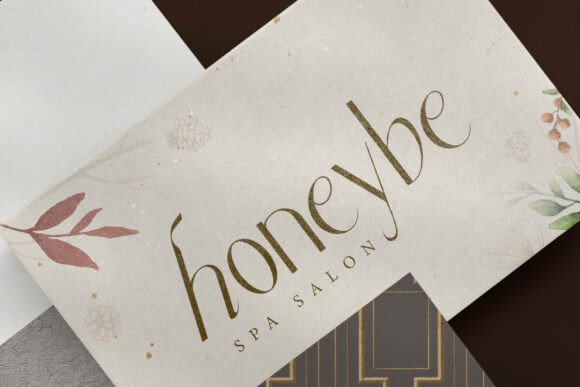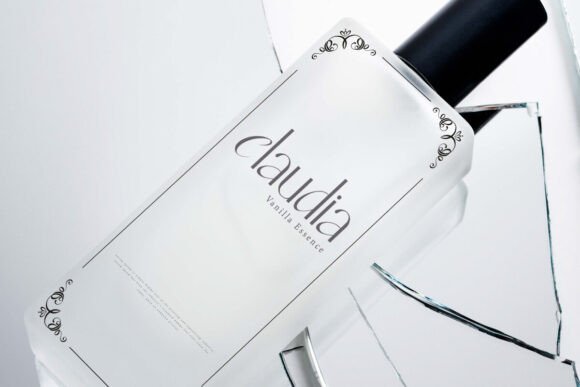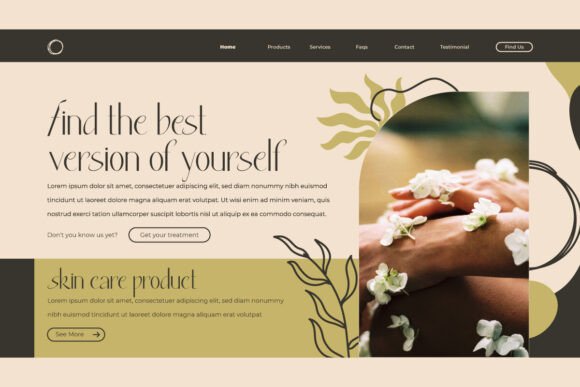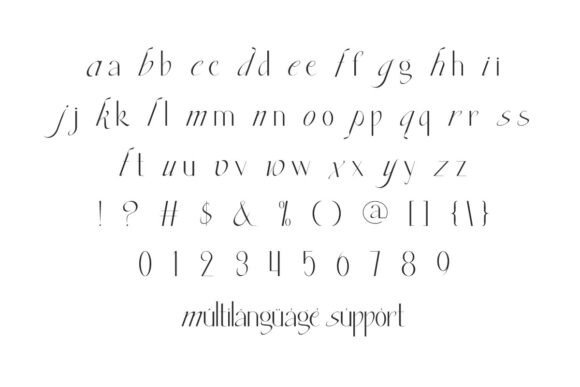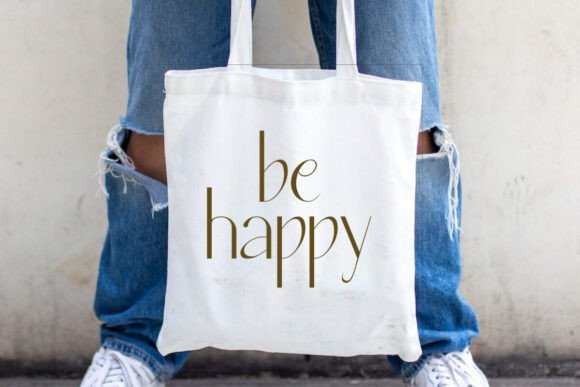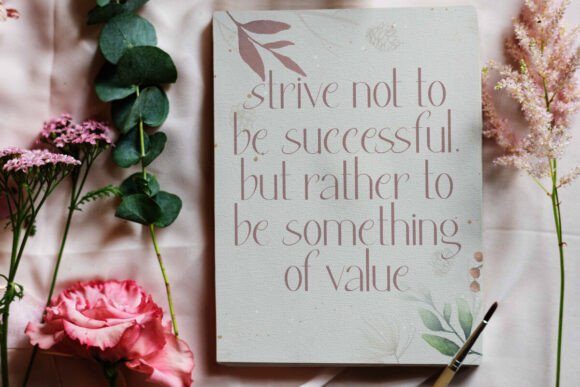
Introducing Good Honey Font: Elevate Your Designs with Elegance and Sophistication
In the world of typography, a good font can make all the difference in elevating your design from ordinary to extraordinary. If you’re a designer or crafter looking for a stylish and elegant serif font to add a touch of sophistication to your projects, look no further than Good Honey Font. This beautiful font is designed to impress, with its unique blend of italic uppercase letters and minimalist lowercase letters that will make your designs stand out.
What Makes Good Honey Font Special?
Good Honey Font is an elegant and sophisticated serif font that boasts a range of features that set it apart from other fonts. One of its standout features is its two different lowercase types, which offer versatility and flexibility in your designs. One of the lowercase types is slanted, adding a touch of whimsy and flair to your text, while the other has a unique appearance with the addition of a small line at the end of the letters, giving it a distinctive edge.
Whether you’re designing a brochure, business card, custom design, gift box, invitation, label, product packaging, quote, screen printing, website, or any other project, Good Honey Font is the perfect choice. Its elegant and sophisticated style makes it suitable for a wide range of designs, from luxury brands to creative projects.
Key Features of Good Honey Font
- Elegant and sophisticated serif font: Good Honey Font features a classic serif design that exudes elegance and sophistication.
- Italic uppercase letters: The uppercase letters are slanted, adding a touch of flair and whimsy to your text.
- Minimalist lowercase letters: The lowercase letters are simple and understated, providing a beautiful contrast to the more ornate uppercase letters.
- Two different lowercase types: The font features two different lowercase types, one slanted and one with a small line at the end of the letters, giving you flexibility and versatility in your designs.
- Suitable for a wide range of designs: Good Honey Font can be used in a variety of designs, from brochures and business cards to custom designs, gift boxes, invitations, labels, product packaging, quotes, screen printing, websites, and more.
Why Choose Good Honey Font?
With so many fonts available, why choose Good Honey Font? Here are just a few reasons why this font stands out:
- Unique and distinctive: Good Honey Font has a unique and distinctive style that will set your designs apart from the crowd.
- Elegant and sophisticated: The font’s elegant and sophisticated style makes it perfect for luxury brands, high-end designs, and creative projects.
- Versatile: Good Honey Font can be used in a wide range of designs, making it a great addition to your font library.
- Easy to read: Despite its elegant and ornate style, Good Honey Font is easy to read, making it perfect for body text and headlines.
How to Use Good Honey Font in Your Designs
Using Good Honey Font in your designs is easy. Here are a few tips to get you started:
- Pair it with a sans-serif font: Pair Good Honey Font with a sans-serif font for a beautiful contrast that will make your designs stand out.
- Use it for headlines and body text: Good Honey Font is perfect for both headlines and body text, making it a great choice for a wide range of designs.
- Experiment with different colors and textures: Good Honey Font looks great in a variety of colors and textures, so don’t be afraid to experiment and find the perfect combination for your design.
In conclusion, Good Honey Font is a beautiful and elegant serif font that is perfect for designers and crafters looking to add a touch of sophistication to their projects. With its unique blend of italic uppercase letters and minimalist lowercase letters, this font is sure to impress. Whether you’re designing a brochure, business card, custom design, gift box, invitation, label, product packaging, quote, screen printing, website, or any other project, Good Honey Font is the perfect choice.